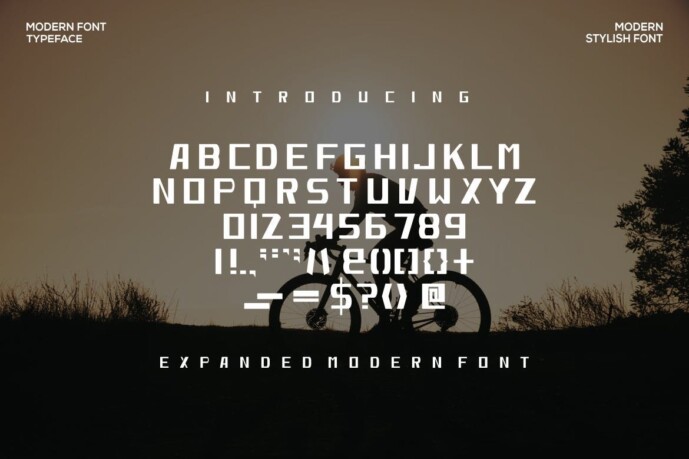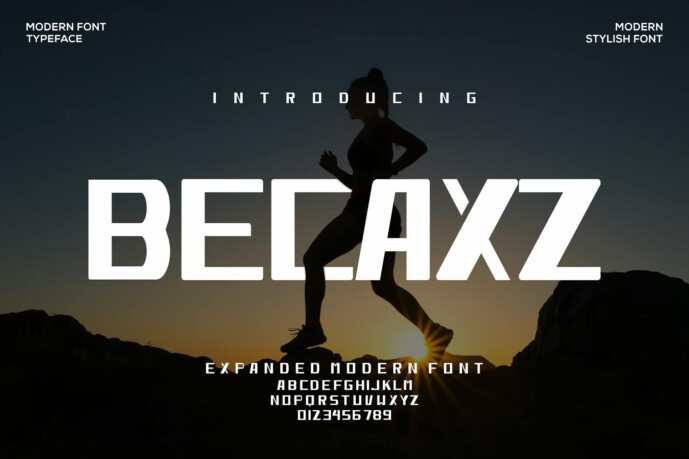
Becaxz Font
Designer: ariyadiagus
Becaxz Font – Modern Font is a bold and authentic display font. The font is suitable for all branding projects such as Logo, esports, etc. It is exceptional in a wide range of contexts